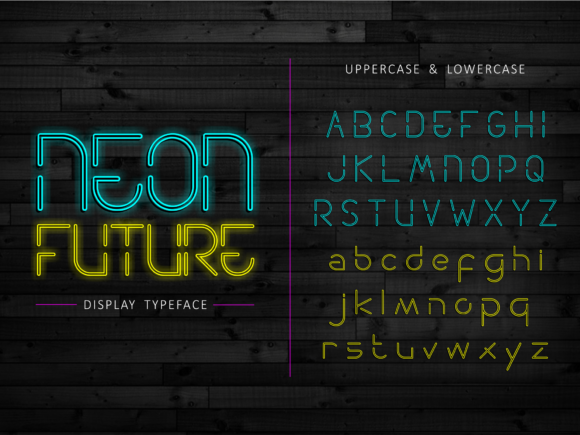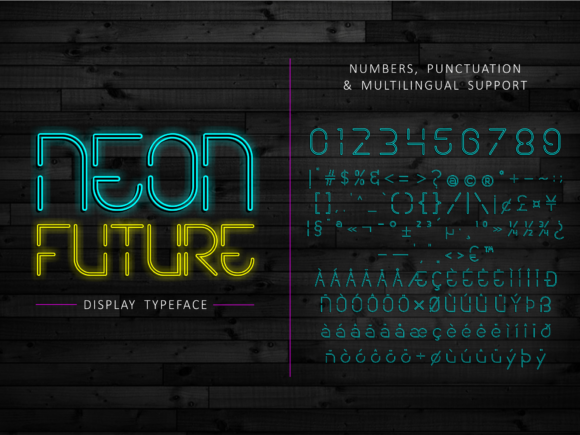
Getting Inspired by the Neon Future Font
Have you ever stared at a cityscape at night, mesmerized by the neon lights that seem to dance across the buildings? That’s the kind of magic that the Neon Future Font brings to your creative project. This retro-futuristic display font has a timeless style that’s sure to captivate your audience and leave a lasting impression.
As a designer, you know the importance of having the right tools at your disposal. That’s why the Neon Future Font is a valuable resource for any design project. With its elegant and urban look, it’s perfect for creating eye-catching graphics, logos, and even UI elements. Plus, its transparent background makes it easy to layer and customize to fit your design needs.
Key Features of Neon Future Font
- Unique futuristic design with a bold and vibrant aesthetic, ideal for creative projects and futuristic themes.
- High-quality vector graphics with transparent background, making it easy to use in various design applications.
- Perfect for use in graphic design, digital art, and other creative projects that require a bold and eye-catching font.
- Can be easily customized and edited to fit the needs of your project, with a scalable design that looks great in various sizes and resolutions.
Honest Review: Neon Future Font
I recently came across the Neon Future Font and I’m excited to share my thoughts on this design resource. As a designer, I’m always on the lookout for high-quality fonts to enhance my creative projects.
What works well about the Neon Future Font is its modern and futuristic aesthetic, making it perfect for designs that need a touch of innovation. The font is available for free download, which is a huge plus for designers who are working on tight budgets. The transparent background also allows for seamless integration into any design.
- Modern and futuristic aesthetic
However, there are a few limitations to consider: ⚠️ The font may not be suitable for designs that require a more traditional or classic look. Additionally, the font is limited in its range of styles and weights.
Overall, I’m impressed with the Neon Future Font and I think it’s a great addition to any designer’s toolkit. It’s perfect for designers who are working on projects that require a modern and futuristic feel. I’d definitely recommend it to anyone looking for a high-quality design resource. ✨
Tips for Getting the Most Out of Neon Future Font
Use the Neon Future Font in combination with other design resources to create a unique and eye-catching design. Experiment with different font sizes, colors, and styles to achieve the desired effect. Consider using the font’s transparent background feature to create a sense of depth and dimension.
Common Use Cases for Neon Future Font
The Neon Future Font is a versatile design resource that can be used in a variety of creative projects, including logos, posters, social media graphics, and more. Its high-quality feature makes it perfect for professional designs, while its transparent background feature makes it ideal for creating eye-catching designs with a sense of depth and dimension.